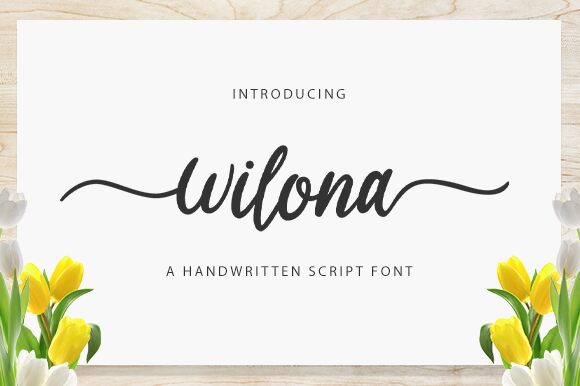
Wilona
Wilona is a charming semi-light font designed by Graphix Line Studio, featuring a delightful handwritten style. Perfect for creating a playful and whimsical tone, this font is ideal for projects such as children's books, greeting cards, invitations, and social media graphics. Wilona is versatile enough to be used in both print and digital mediums, providing a touch of warmth and personality to any design. With its unique character and easy readability, Wilona will surely capture the hearts of your audience. Add this cute handwritten font to your collection today and let your creativity soar!